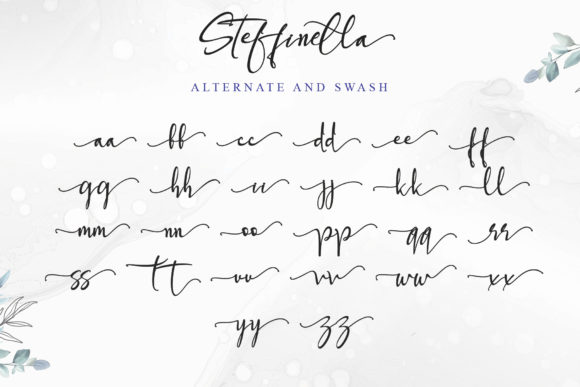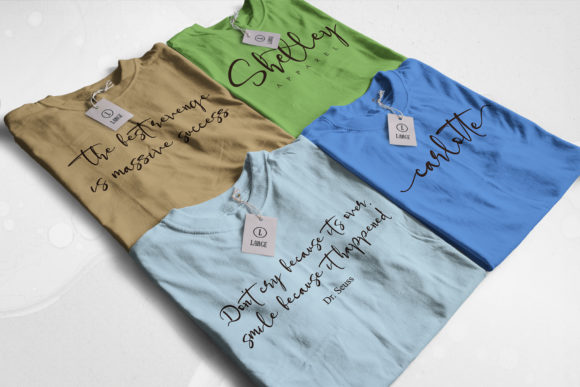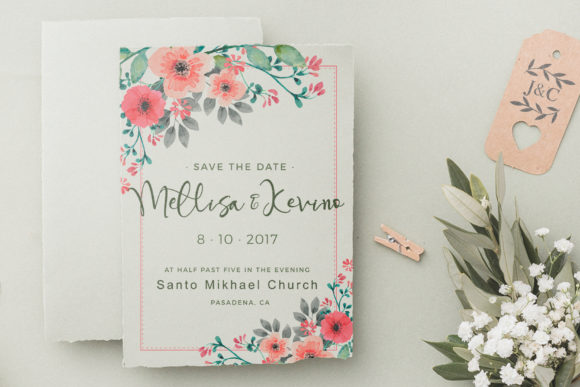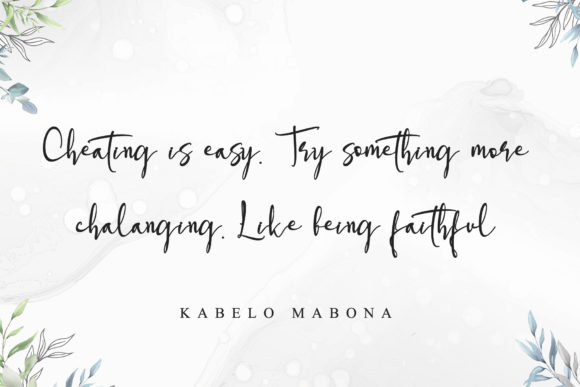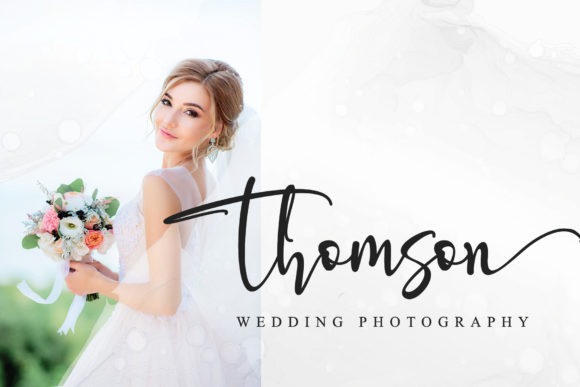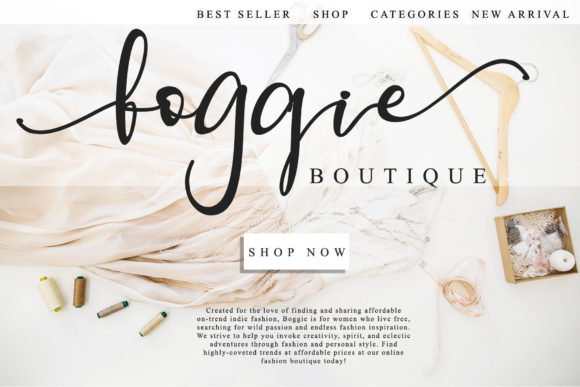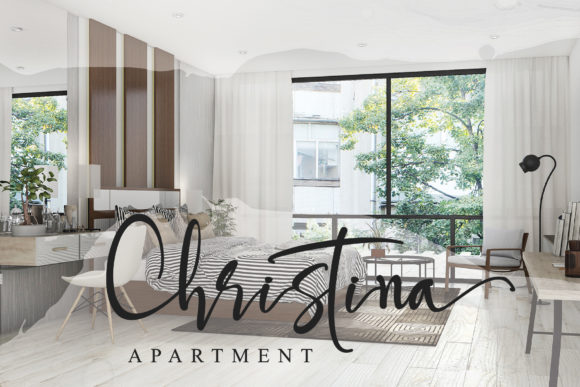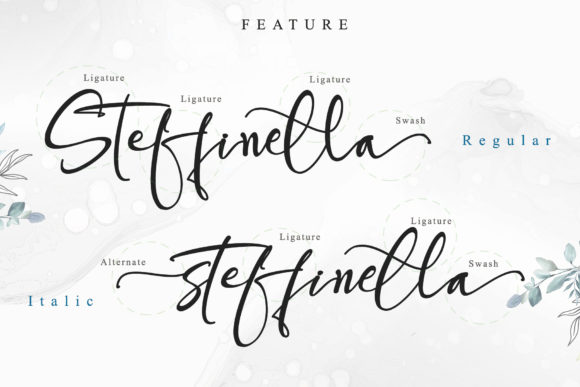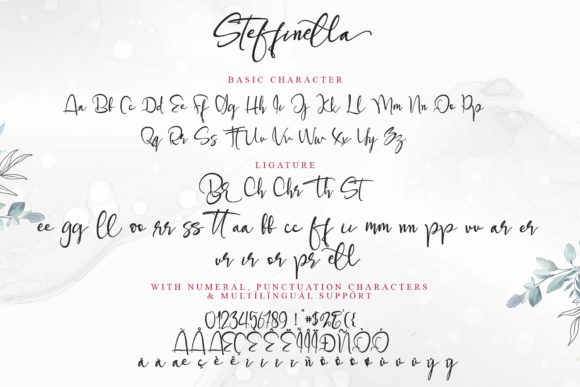
Steffinella Font
About Steffinella Font
Steffinella is a delicate and flowing handwritten font. It looks stunning on wedding invitations, thank you cards, quotes, greeting cards, logos, business cards and every other design which needs a handwritten touch.